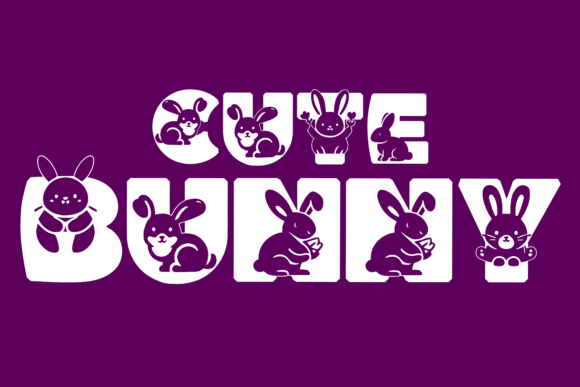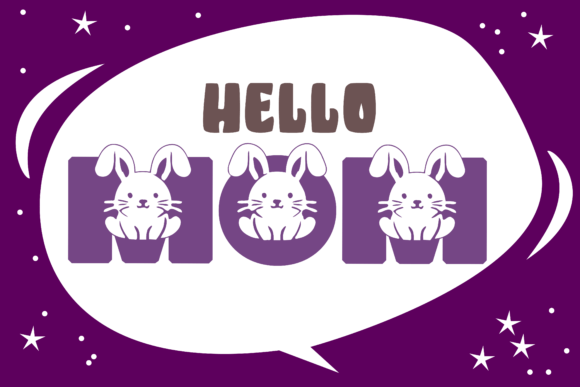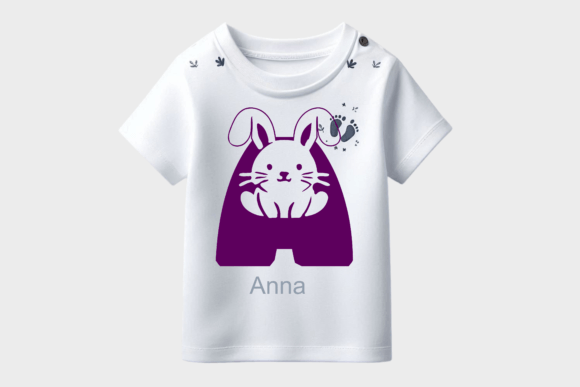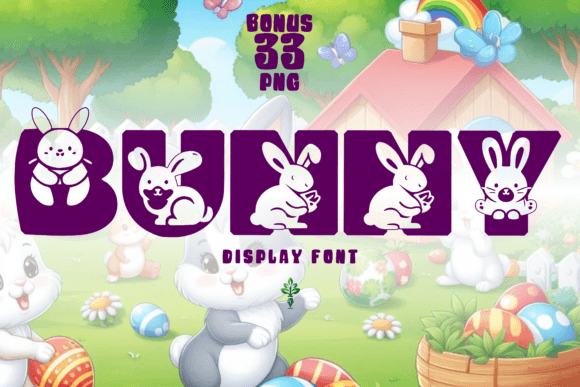
Introducing Experience Bunny: The Whimsical Font that Brings Joy to Creative Projects
Are you a designer, crafter, or creative enthusiast looking for a font that can add a touch of magic to your projects? Look no further than Experience Bunny, an enchanting typeface that is sure to captivate your audience with its whimsical allure. This aesthetically pleasing font is perfect for a wide range of applications, from t-shirt graphics and babywear to nursery decorations, web displays, and greeting cards.
The Power of Whimsy: How Experience Bunny Can Elevate Your Designs
Experience Bunny is more than just a font – it’s an experience. Its playful, curly lines and endearing charm can instantly transform your creative ideas into masterpieces of ingenuity. Whether you’re designing for a client or working on a personal project, this font is sure to bring a lively burst of energy to your work. With Experience Bunny, you can:
- Create eye-catching t-shirt graphics that will make your customers smile
- Design adorable babywear that parents will love
- Craft whimsical nursery decorations that will delight kids and adults alike
- Develop dynamic web displays that will engage your online audience
- Spread warmth and joy through greeting cards that will make recipients feel special
The Secret to Experience Bunny’s Magic
So, what makes Experience Bunny so special? The secret lies in its unique design, which seamlessly merges imagination with joy. This font is carefully crafted to evoke a sense of wonder and curiosity, making it perfect for projects that require a touch of playfulness and creativity. With Experience Bunny, you can:
- Add a dash of whimsy to your designs
- Create a sense of enchantment and curiosity
- Evoke emotions and spark imagination
- Make your projects stand out from the crowd
Exploring the Extraordinary Secrets of Experience Bunny
Experience Bunny is more than just a font – it’s a gateway to a mesmerizing universe of creative possibilities. By exploring the fonts of Experience Bunny, you can:
- Discover new ways to express yourself creatively
- Unlock the secrets of whimsical design
- Tap into the magic of playful typography
- Submerge yourself in a world of imagination and joy
If you’re a designer or crafter looking to get the most out of Experience Bunny, here are some tips to keep in mind:
- Play with font sizes and styles to create visual hierarchy and emphasis
- Combine Experience Bunny with other fonts to create unique and interesting pairings
- Don’t be afraid to get creative and try new things – Experience Bunny is all about experimentation and imagination!
Experience Bunny is a font that is sure to delight designers, crafters, and creative enthusiasts alike. With its whimsical allure and enchanting charm, it’s the perfect addition to any project that requires a touch of magic and imagination. So why wait? Explore the extraordinary secrets of Experience Bunny today and discover a world of creative possibilities waiting to be unlocked.
Whether you’re a seasoned designer or just starting out, Experience Bunny is a must-have font that will inspire you to create something truly special. So go ahead, get creative, and let Experience Bunny bring a lively burst of energy to your projects!